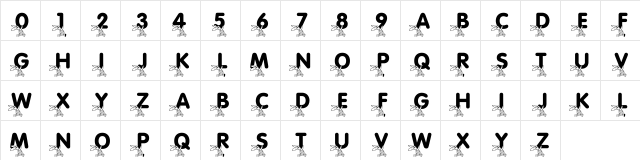
LMS Pigglet's Prize Regular Font Preview
LMS Pigglet's Prize Regular
LMS Pigglet's Prize Regular Font Details
Design Context for LMS Pigglet's Prize Typeface
LMS Pigglet's Prize offers clean, dependable letterforms without strong stylistic allegiance, making it a practical choice for designers who need flexibility.